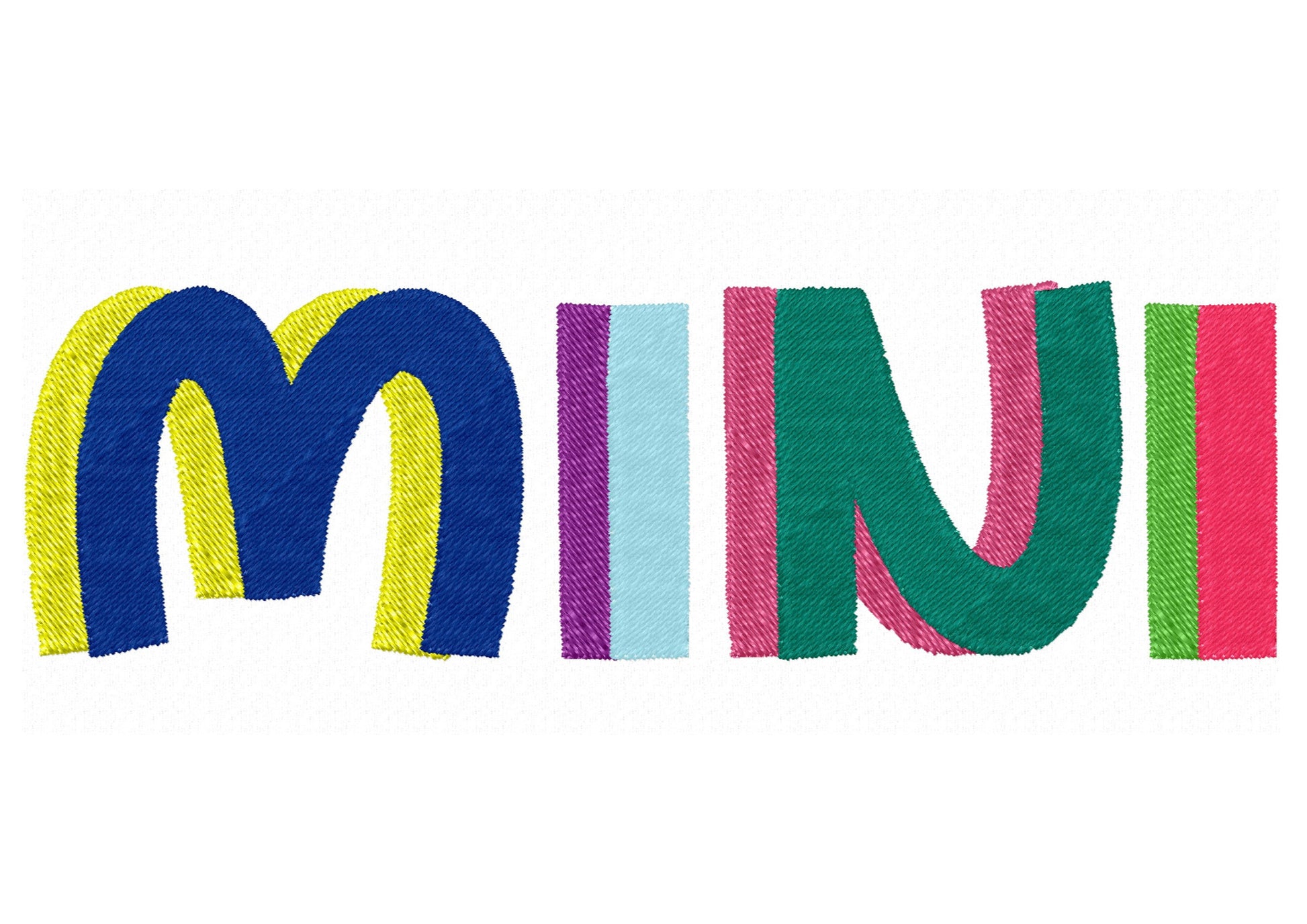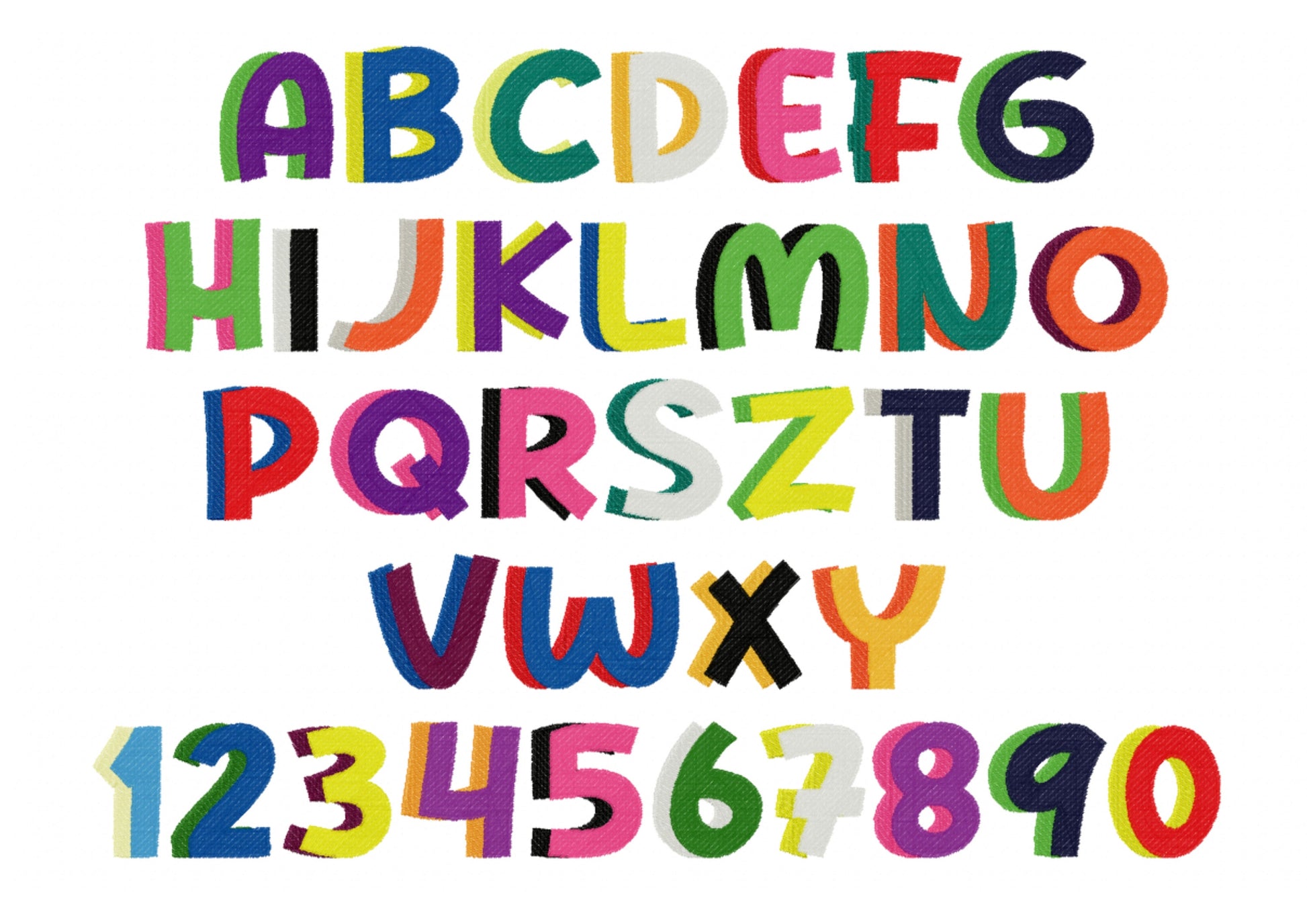
Or click to open the linkA colorful shadow font in fill stitch. Great for kids' names, monograms, shirts and bags.
Uppercase and lowercase letters, numbers 0 to 9 and punctuation. Four sizes: 1, 1.5, 2 and 2.5 inches.